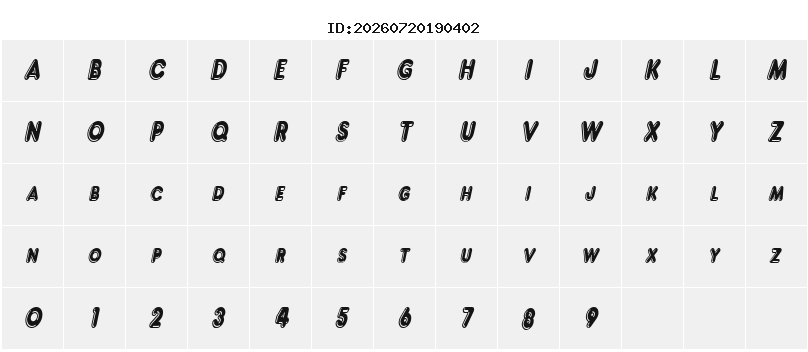
Francis High Lighted Condensed Preview
• Font Name: Francis High Lighted Condensed
About Francis High Lighted Condensed.ttf
Francis High Lighted Condensed.ttf is a modern, elegant sans-serif font designed for ultimate readability and visual harmony. Perfect for branding, headlines, web design, and print materials.